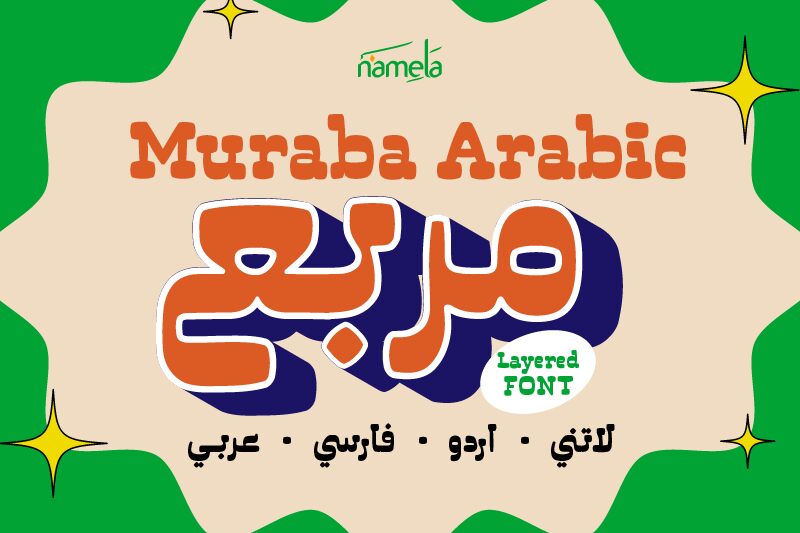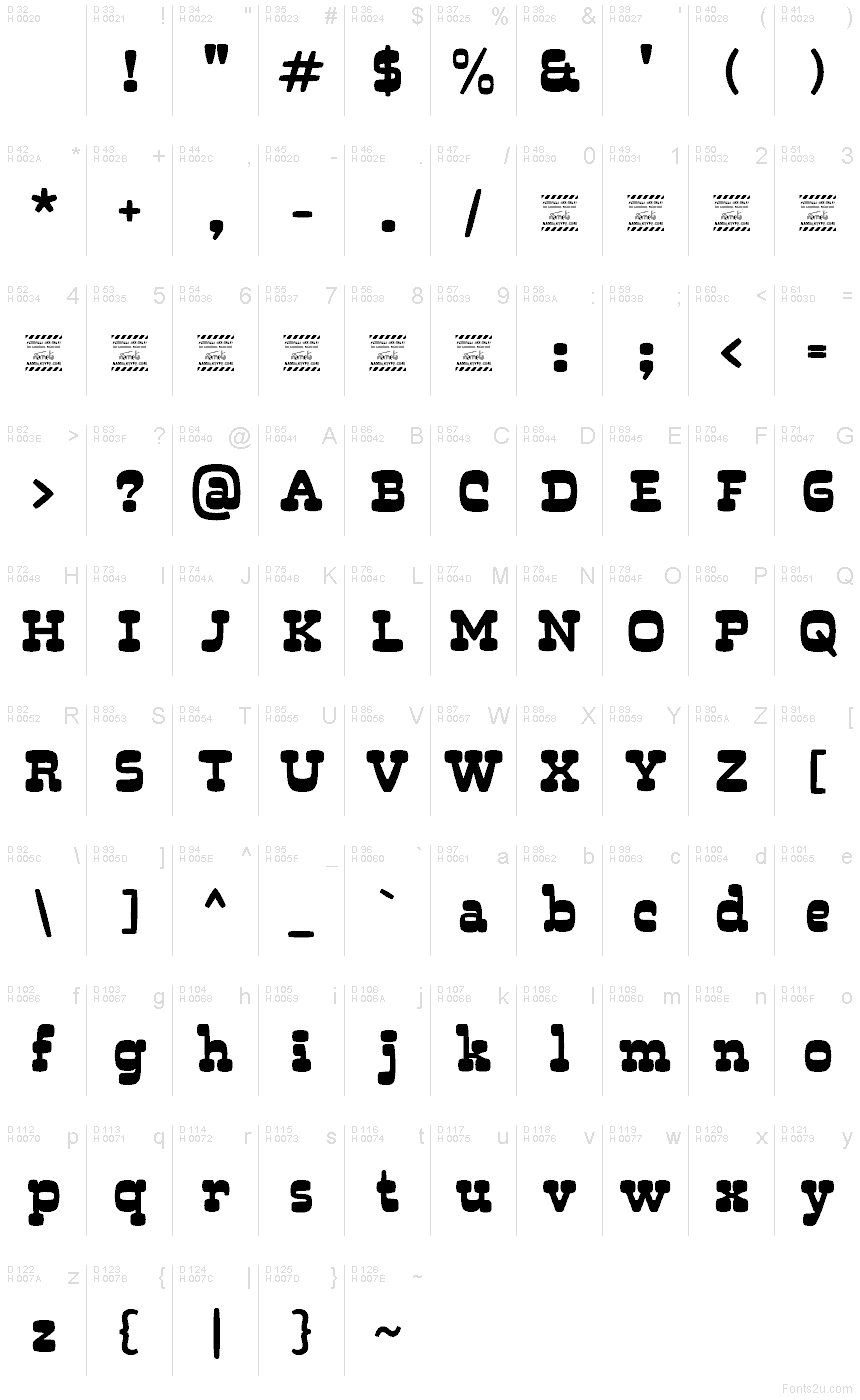
Muraba Arabic DEMO Regular
Muraba Arabic font by Namela Type is a free retro display typeface with a chunky, bubble-like rhythm that feels both playful and grounded. The letters stack into sturdy blocks, yet every curve looks soft and inky, as if stamped with a slightly over-inked press. That mix of squared structure and rounded corners gives Muraba Arabic a cozy, cartoonish charm while still reading clearly at a glance.
Using Muraba Arabic, you can give posters, snack or toy packaging, café branding, event flyers, logos, and bold social media graphics a friendly, nostalgic voice that instantly pops. This free font really comes alive at larger sizes, where its rounded edges and dense forms can breathe. Pair it with a clean geometric sans for body text to keep your layouts readable while Muraba Arabic handles all the character and flair.